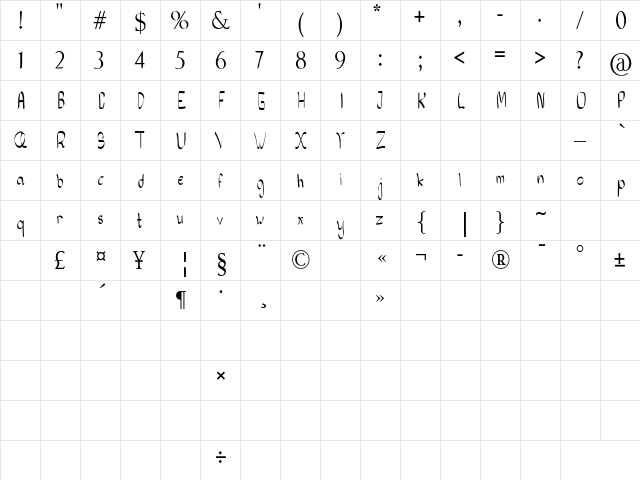
BannedKey Regular
Design Context for BannedKey Typeface
BannedKey offers clean, dependable letterforms without strong stylistic allegiance, making it a practical choice for designers who need flexibility.